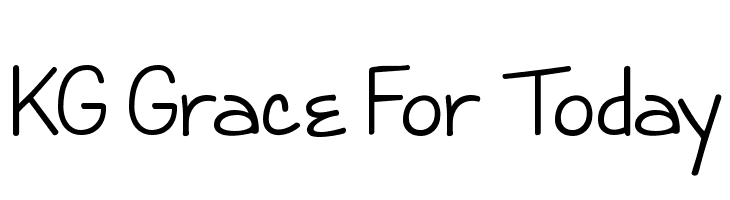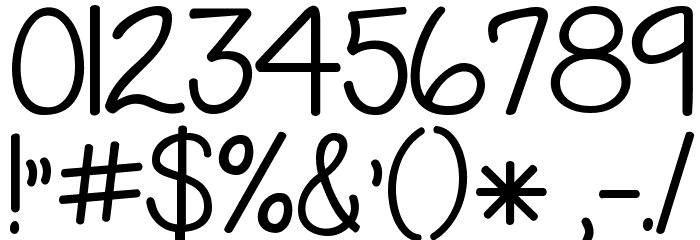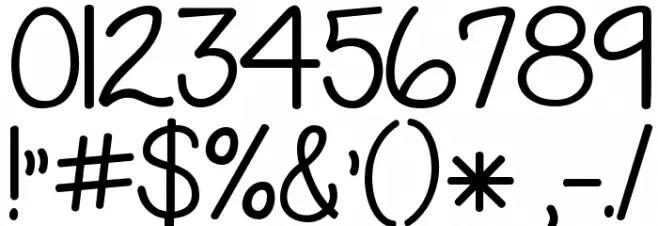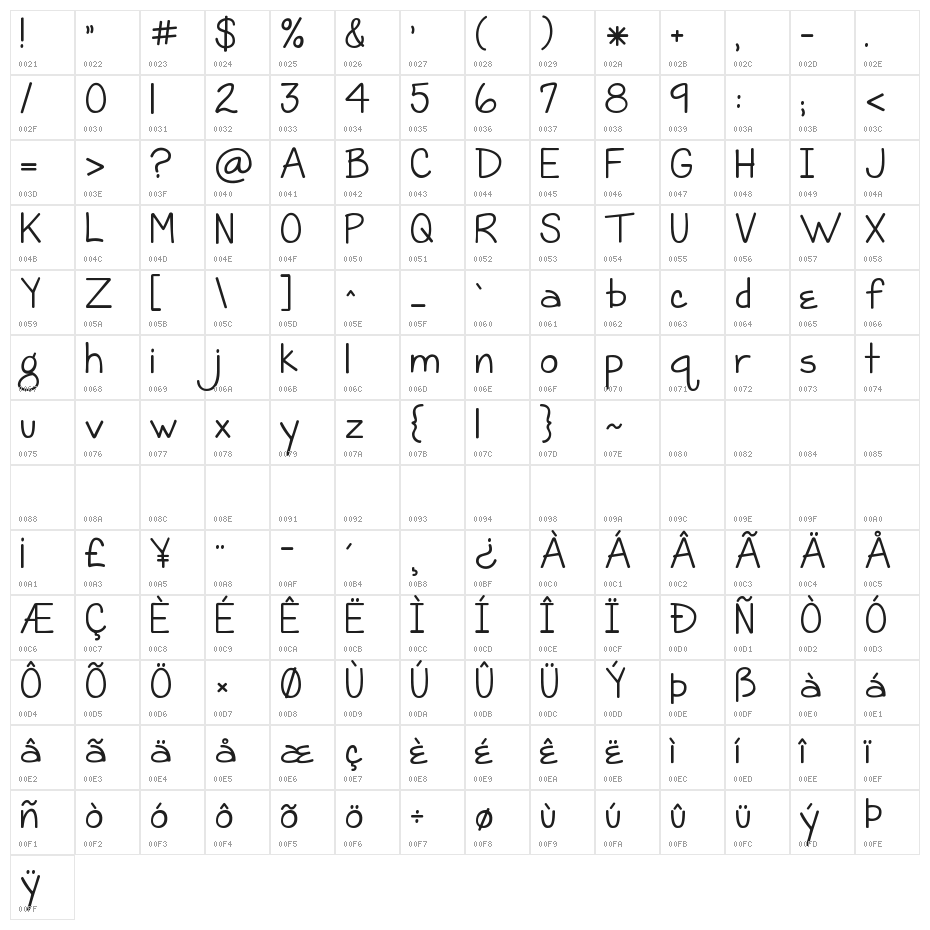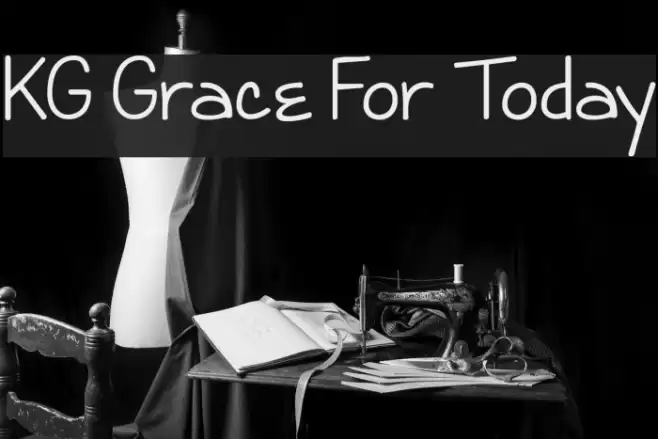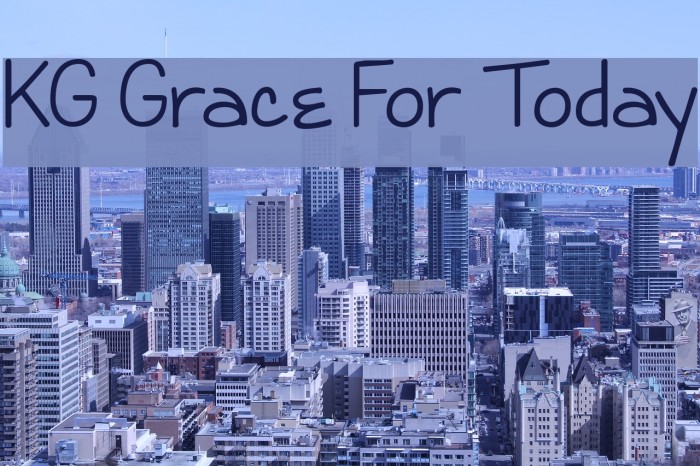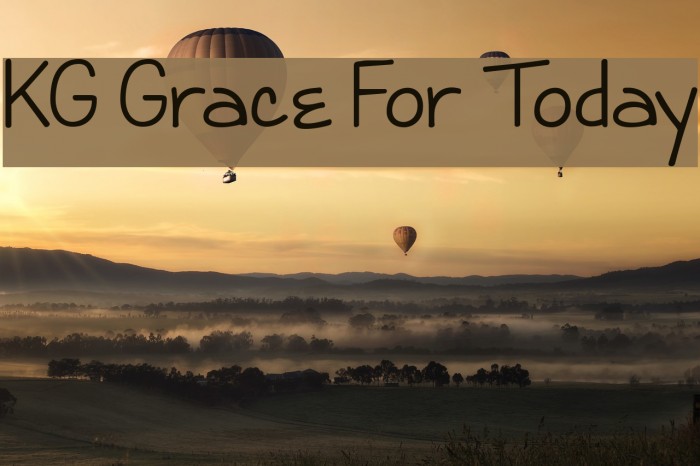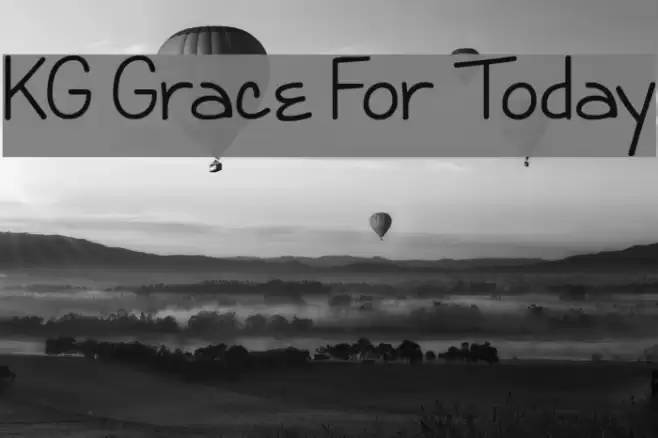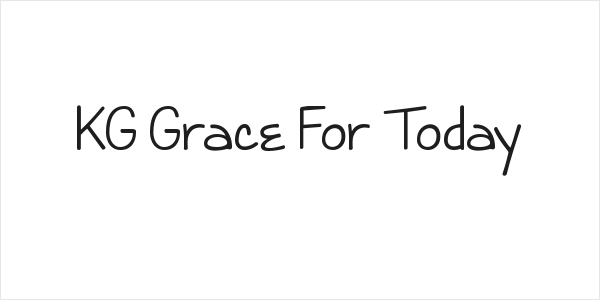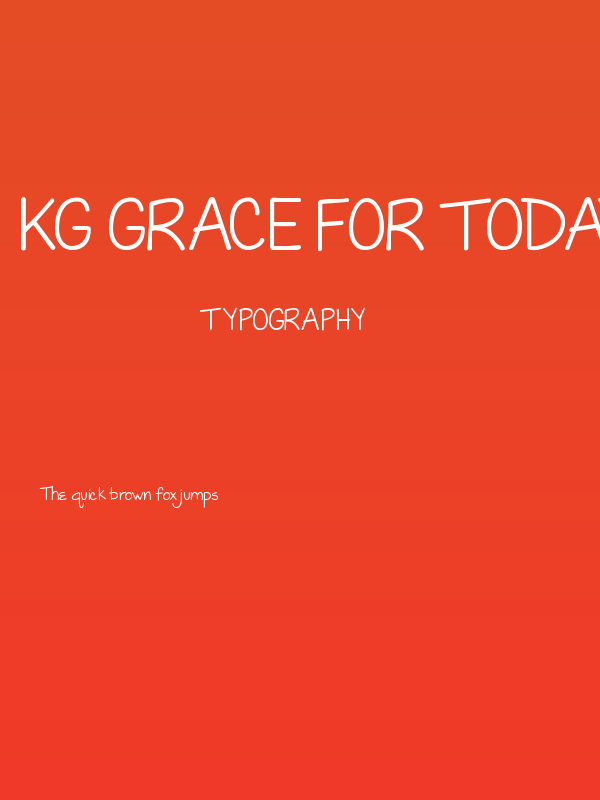
KG Grace For Today Font
KG Grace For Today Description
This font features a playful and casual handwritten style, characterized by its rounded and slightly irregular letterforms. The uppercase letters are tall and narrow, while the lowercase letters have a more relaxed and flowing appearance. The numerals are consistent with the overall style, maintaining the same playful and informal feel. Special characters are well-integrated, adding to the font's versatility. The overall look is approachable and friendly, making it suitable for a variety of creative projects.
| Use Case | Headlines, Logos, Informal text |
| Proposed Projects | Ideal for greeting cards, children's books, playful branding, and informal invitations. |